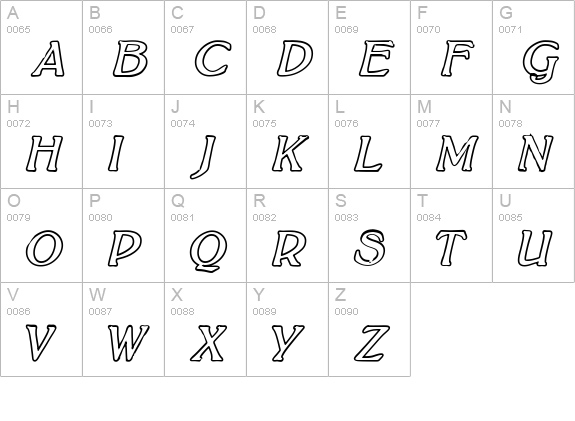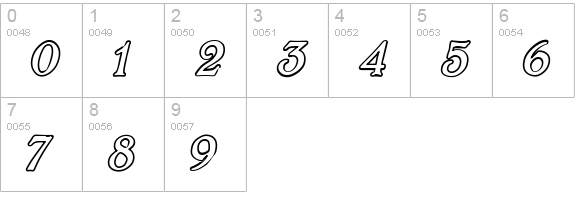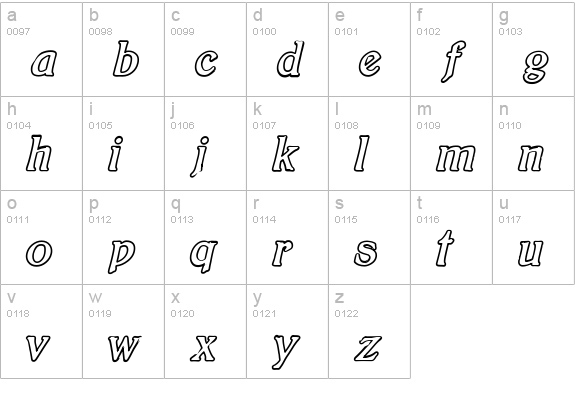
BoltonItalicOutline Font Details
BoltonItalicOutline font is a stylish and modern typeface that exudes sophistication and elegance. Its sleek and slender letterforms give off a sense of contemporary flair, making it perfect for a wide range of design projects. The italicized design adds a touch of sophistication, while the outlined style adds a unique and eye-catching element. This font is not only visually appealing but also versatile, suitable for both headlines and body text. Its clean lines and sharp edges make it easy to read, ensuring that your message is communicated clearly and effectively. Best of all, BoltonItalicOutline font is available for free download at FontsMarket.com. This means that you can elevate your designs without breaking the bank. Download this font today and add a touch of modern elegance to your projects!